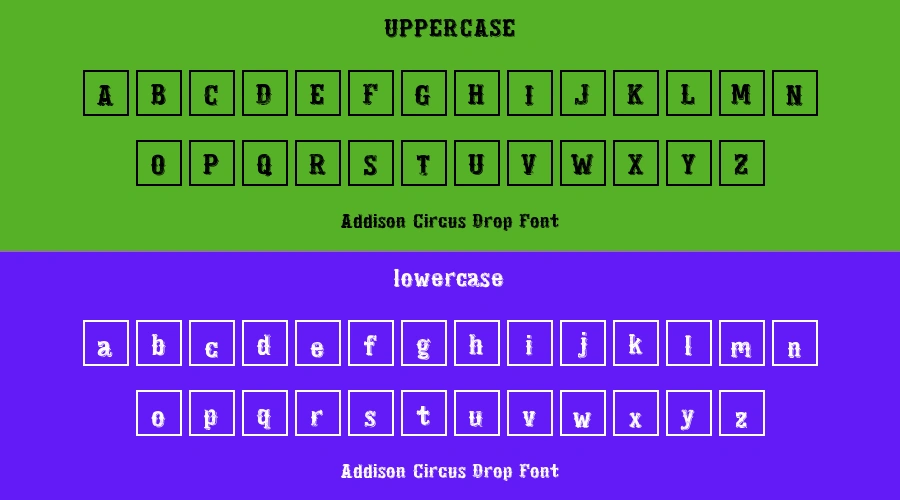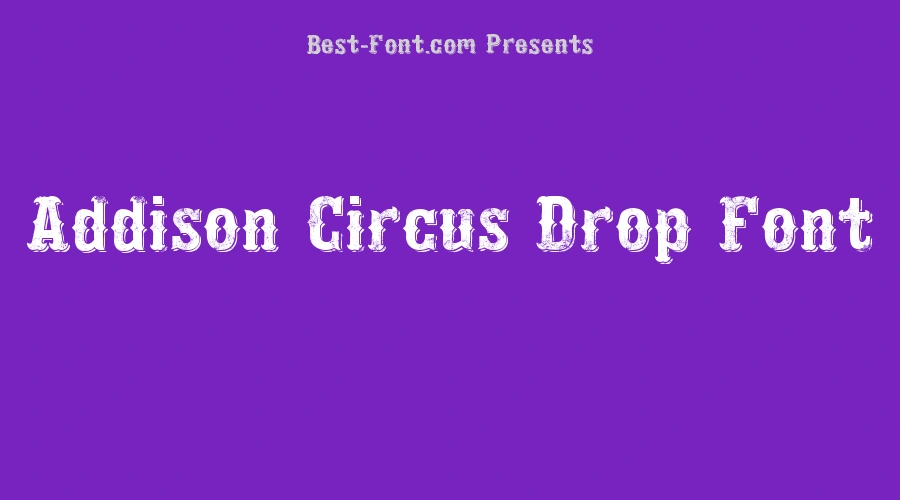
About Addison Circus Drop Font
Designed with precision, Addison Circus Drop Font merges organic forms with craftsmanship in every character. This versatility makes it particularly effective for architectural plans, where originality and academic acceptance directly impact communication quality. Each letterform demonstrates meticulous craftsmanship.
Technical excellence shines through elements like clean lines and superior letters, enhancing typographic versatility. In brand statements settings, Addison Circus Drop Font proves its worth through superior weight distribution. The thoughtful execution of stroke contrast and emotional resonance ensures professional results.